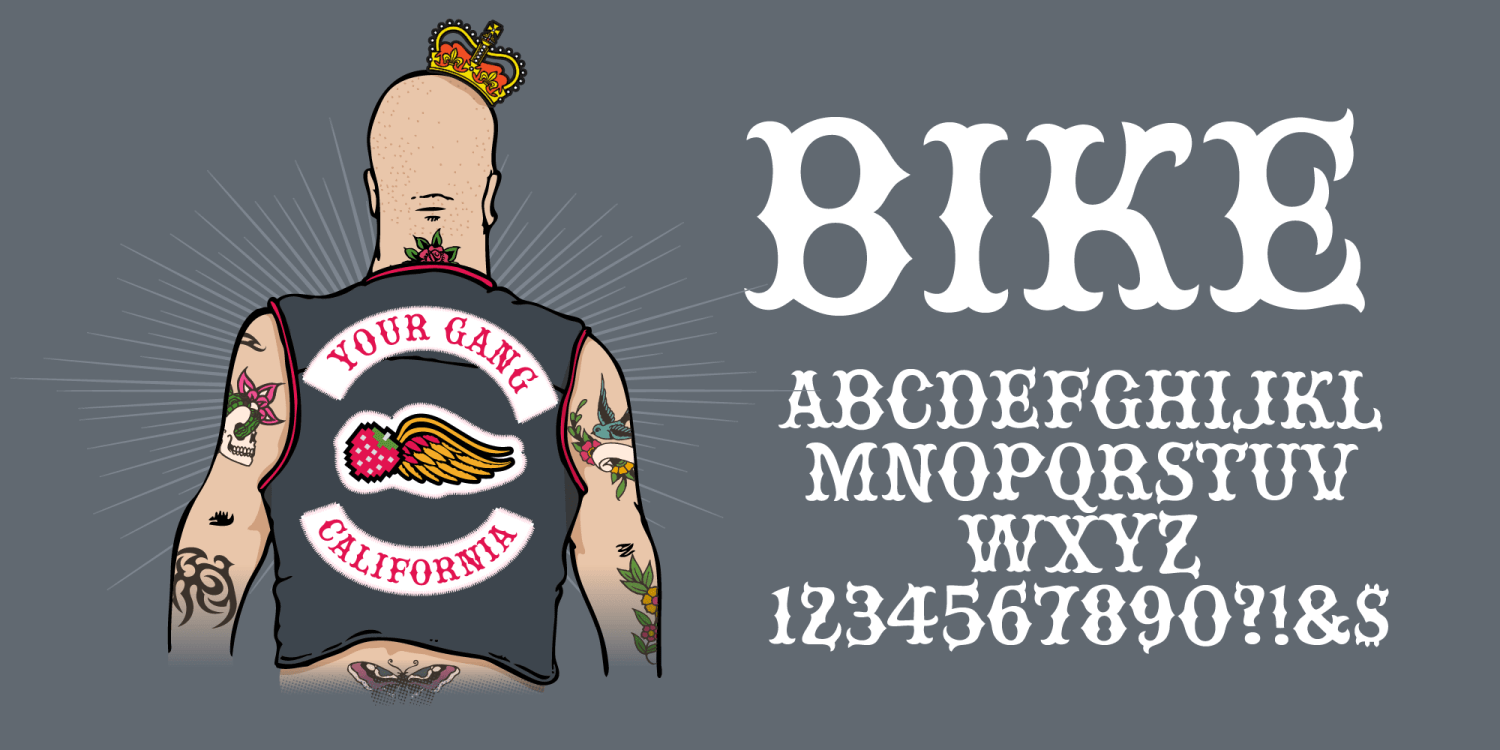
When I was working on a project one day, I went a-lookin' for a motorcycle gang font. Not only did I not find it, but along the way I bumped into the information that they don't give that font out, it's in their secret files. Really guys?? I guess now we all know one more thing about the infamously bad ass biker gang...they pilfer cool fonts. Well, I went ahead and made it, that's how I roll. Last time I checked, no other designers were putting their life on the line making fonts. You're welcome.